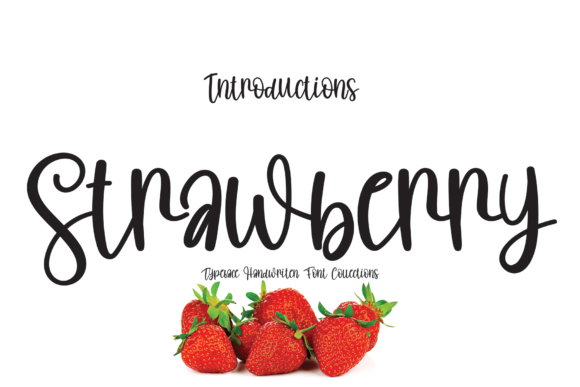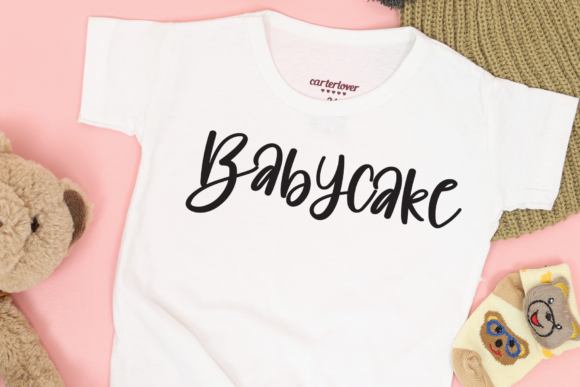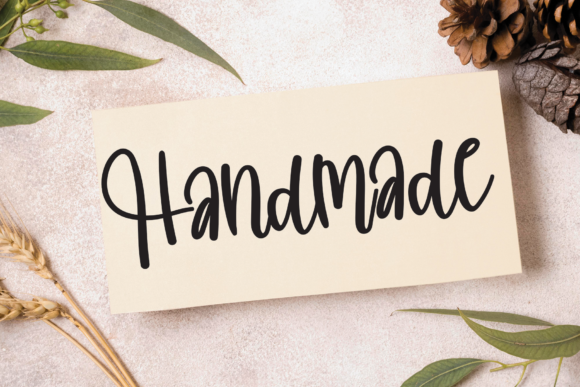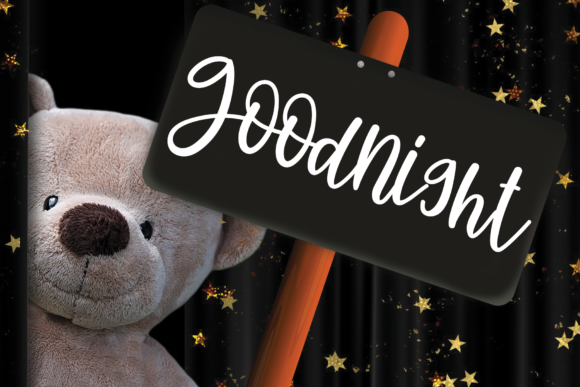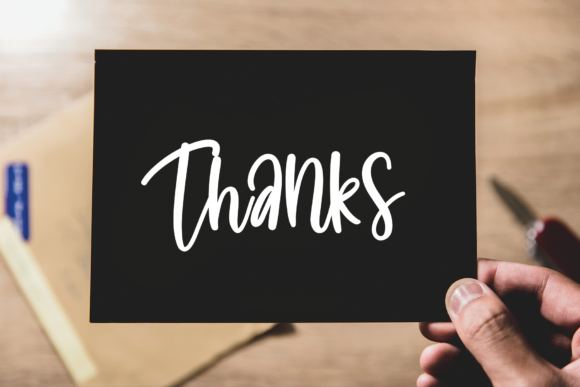
Strawberry Font
About Strawberry Font
Strawberry is a casual and relaxed script font. This font features letters that are perfect for wall displays, wedding invitations, social media post logos, advertisements, product packaging and more.